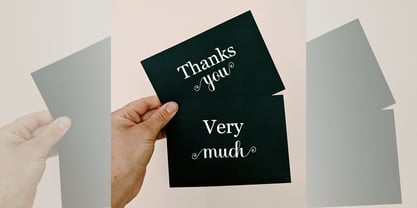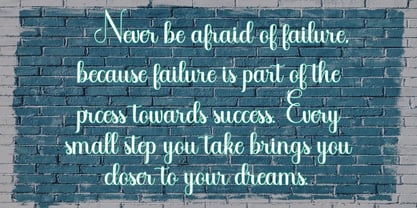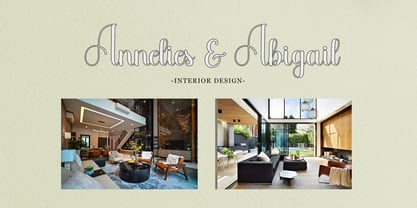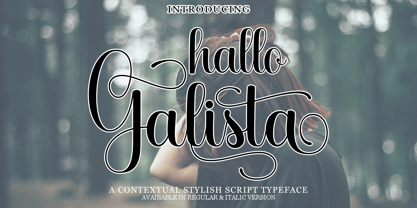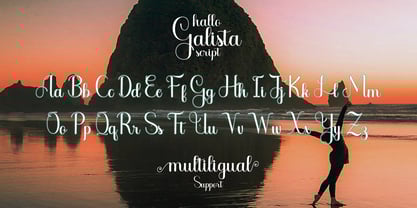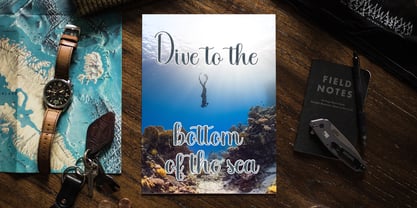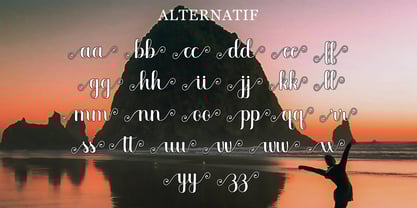
Hallo Galista Script
La familia tipográfica Hallo Galista Script fue diseñada por Ata Illah y publicada por Naiza Studio. Hallo Galista Script contiene 1 estilos. Más información sobre esta familia
Hallo Galista Script is a stylish and incredibly elegant handwritten font. It looks stunning on wedding invitations, thank you cards, quotes, greeting cards, logos, business cards, and every other design that needs a handwritten touch.